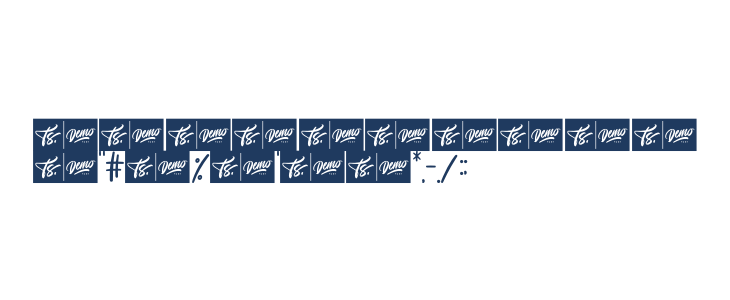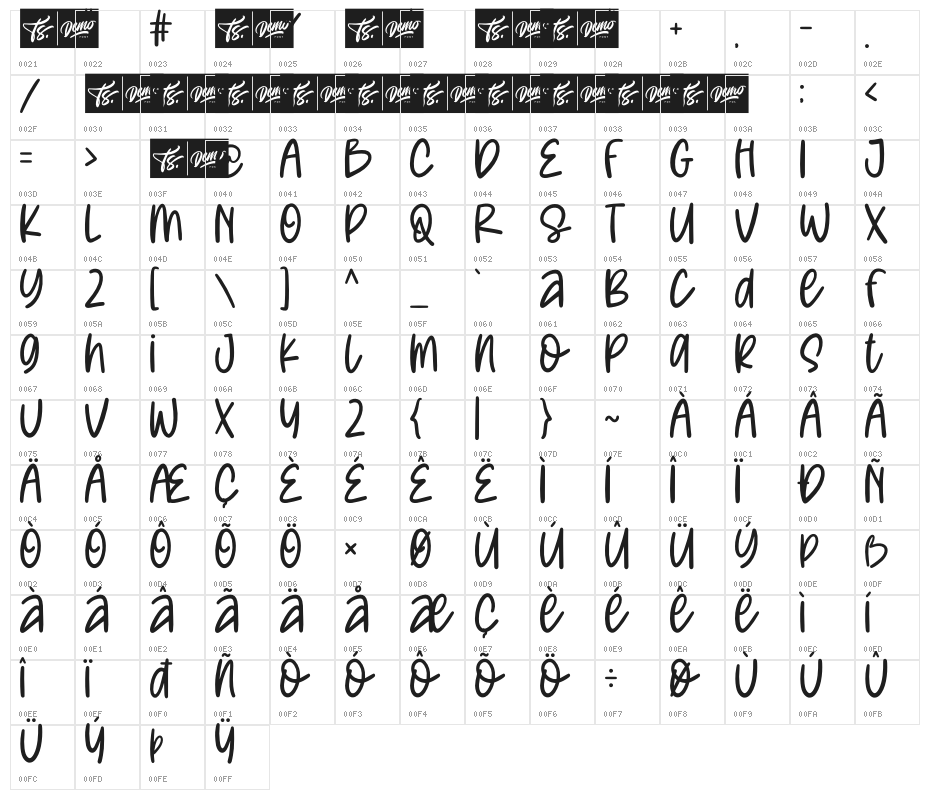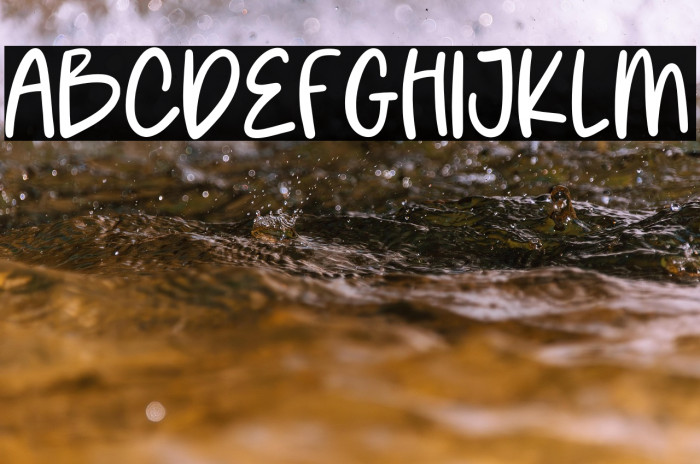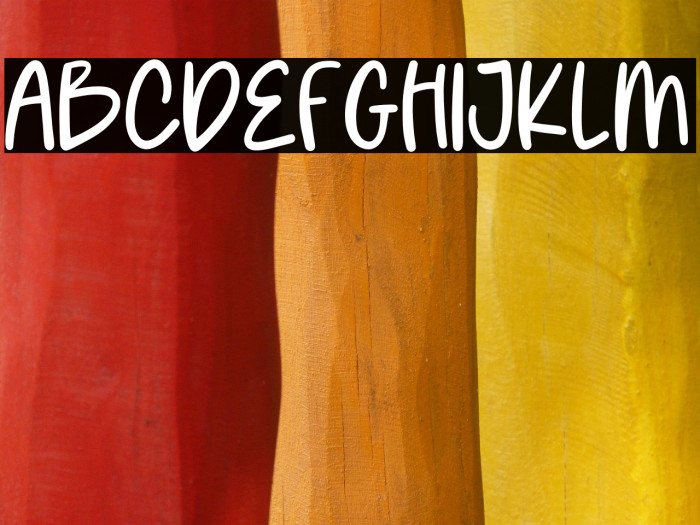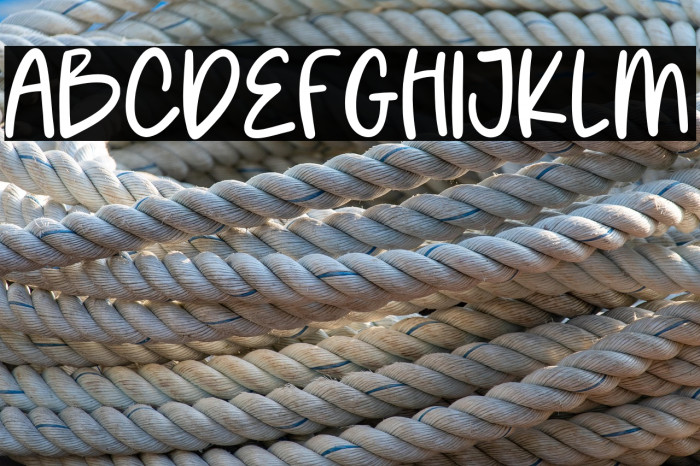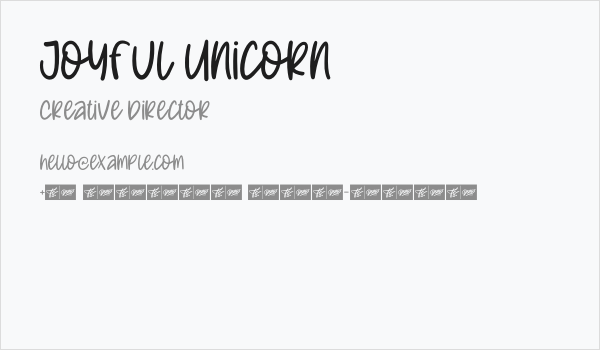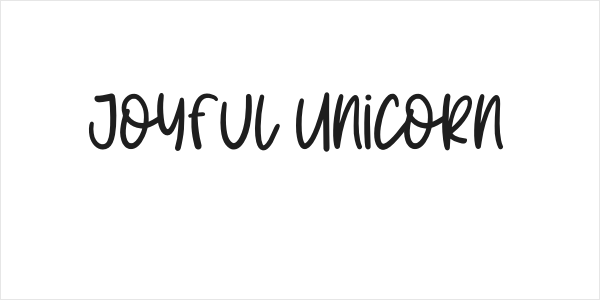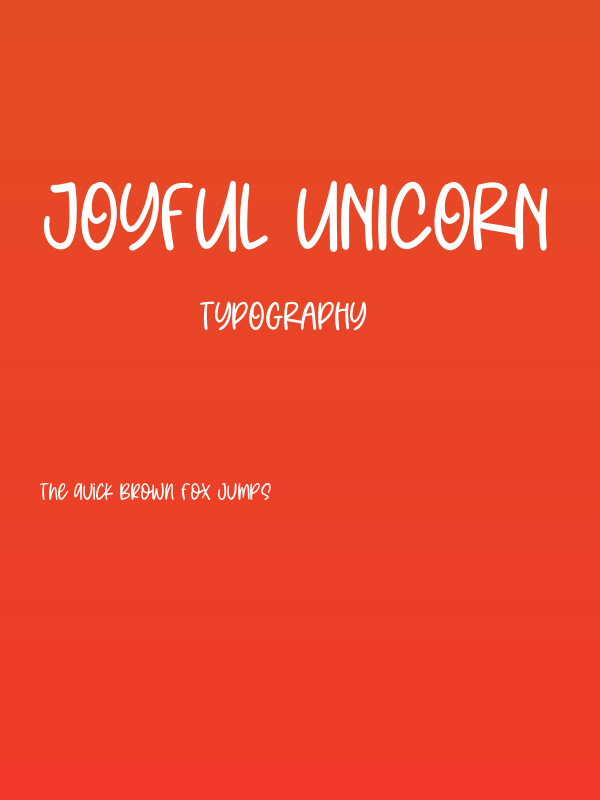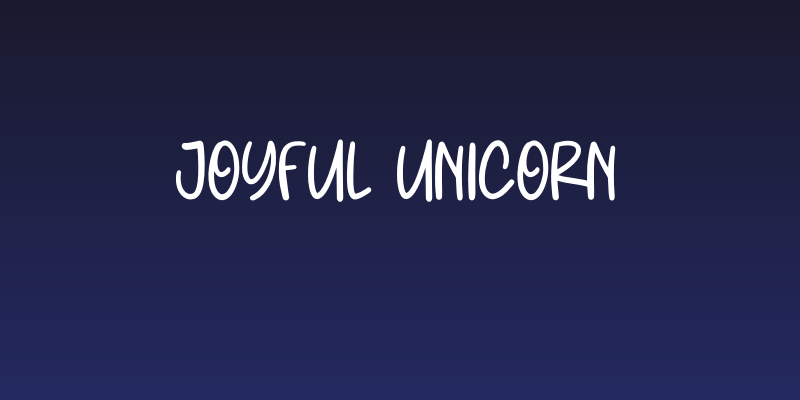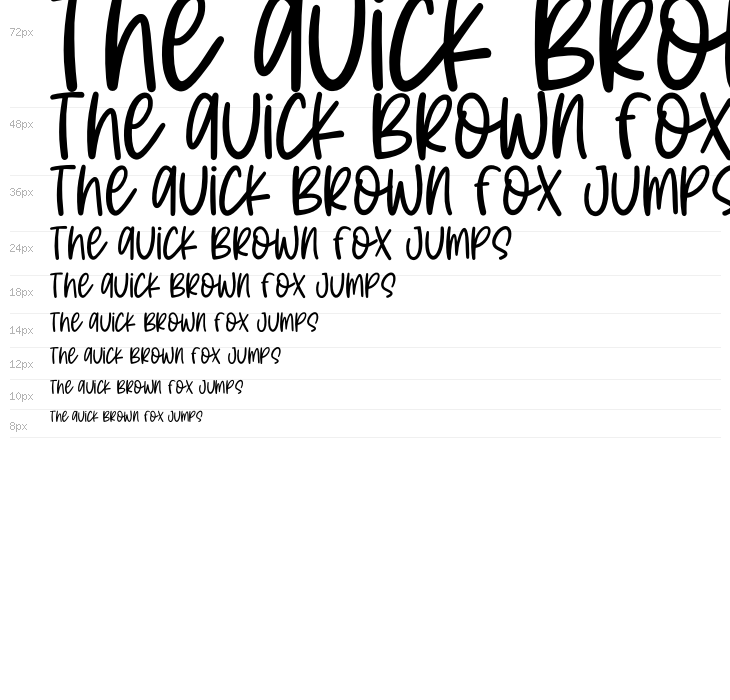
Joyful Unicorn Font
Joyful Unicorn Description
This playful and energetic font features a handwritten style with bold, rounded strokes that convey a sense of joy and creativity. The uppercase and lowercase letters are crafted with a consistent flow, maintaining a casual yet legible appearance. The font includes a full set of numerals and a selection of special characters, making it versatile for various design needs. Its smooth curves and slightly irregular lines give it a friendly and approachable feel, perfect for projects that require a personal touch.
Overall StylePlayful
Use CaseHeadlines, Logos, Social Media
Proposed ProjectsIdeal for greeting cards, children's books, playful branding, and social media graphics.